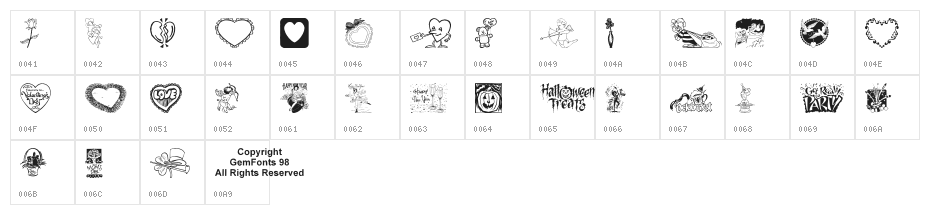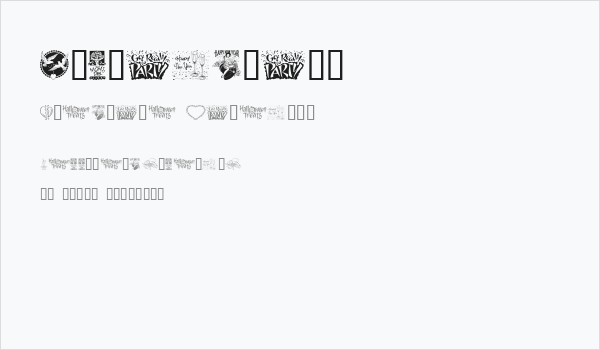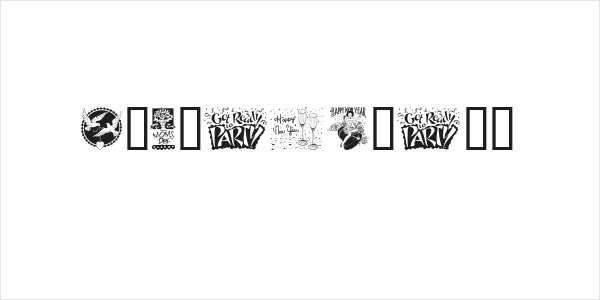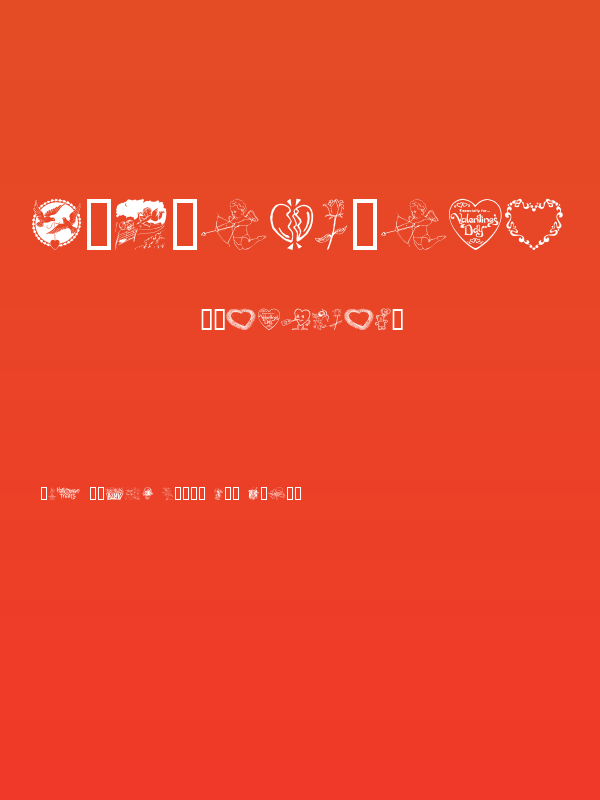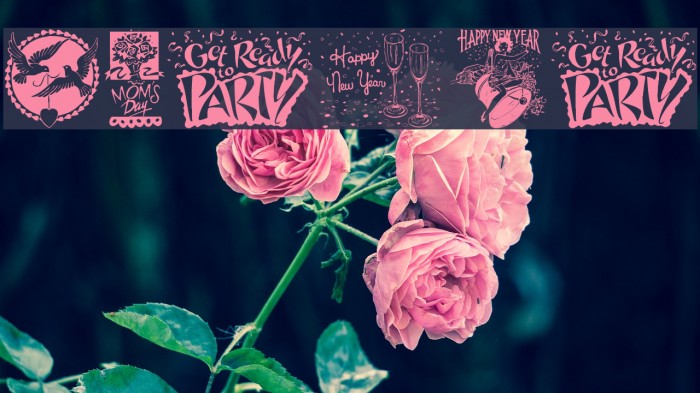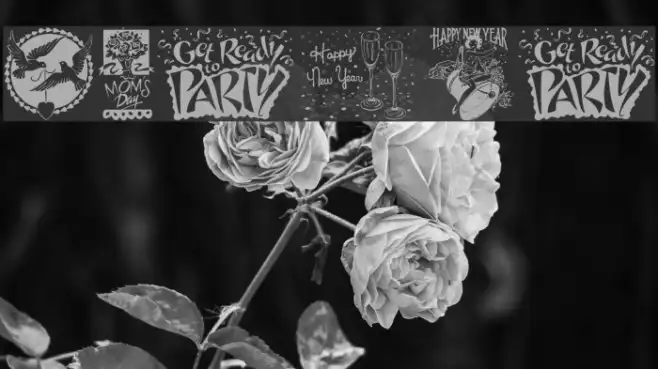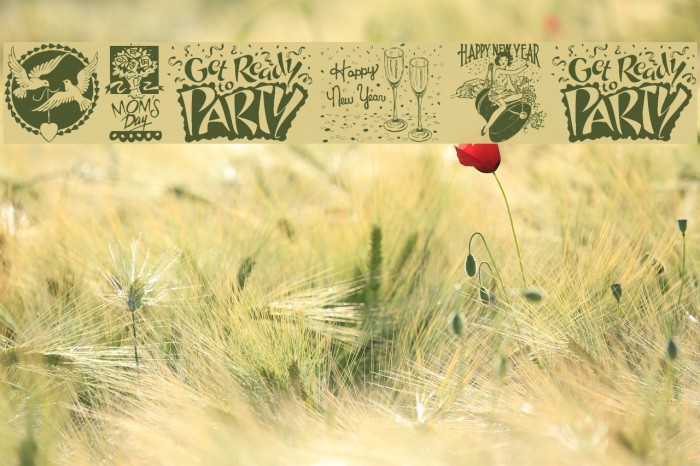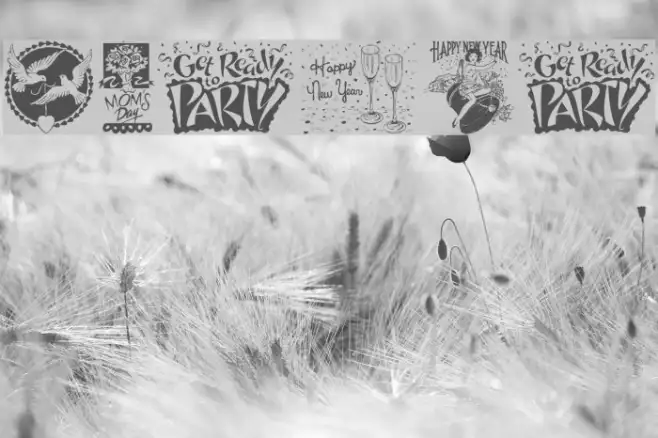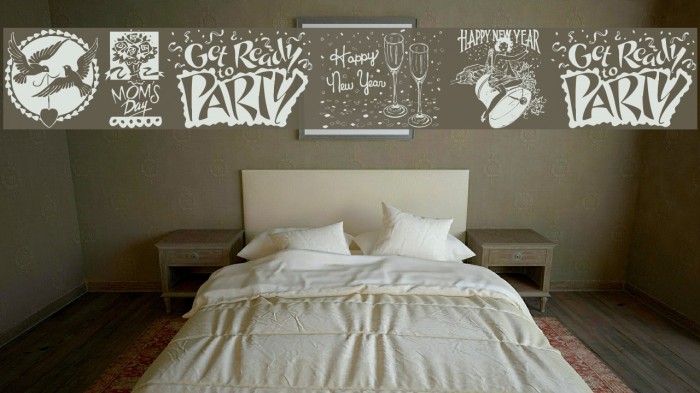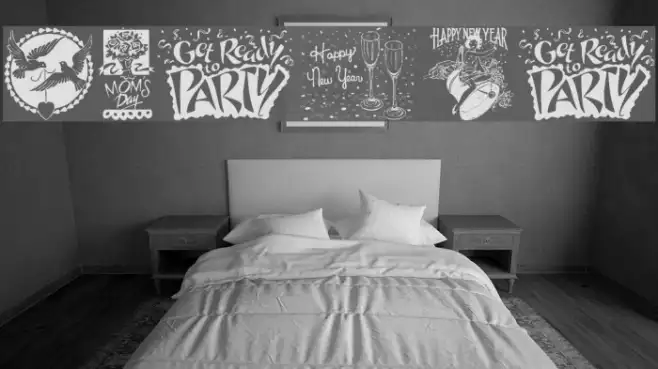
Multicasion Font
Multicasion Description
A highly decorative and illustrative font featuring themed icons and drawings for various occasions such as Valentine's Day, Halloween, and parties. Each character is represented by a unique, detailed graphic rather than traditional letterforms.
| Overall Style | Decorative, Playful, Thematic |
| Use Case | Icons, Decorative elements, Themed graphics |
| Proposed Projects | Greeting cards, party invitations, event flyers, scrapbooking, themed posters. |